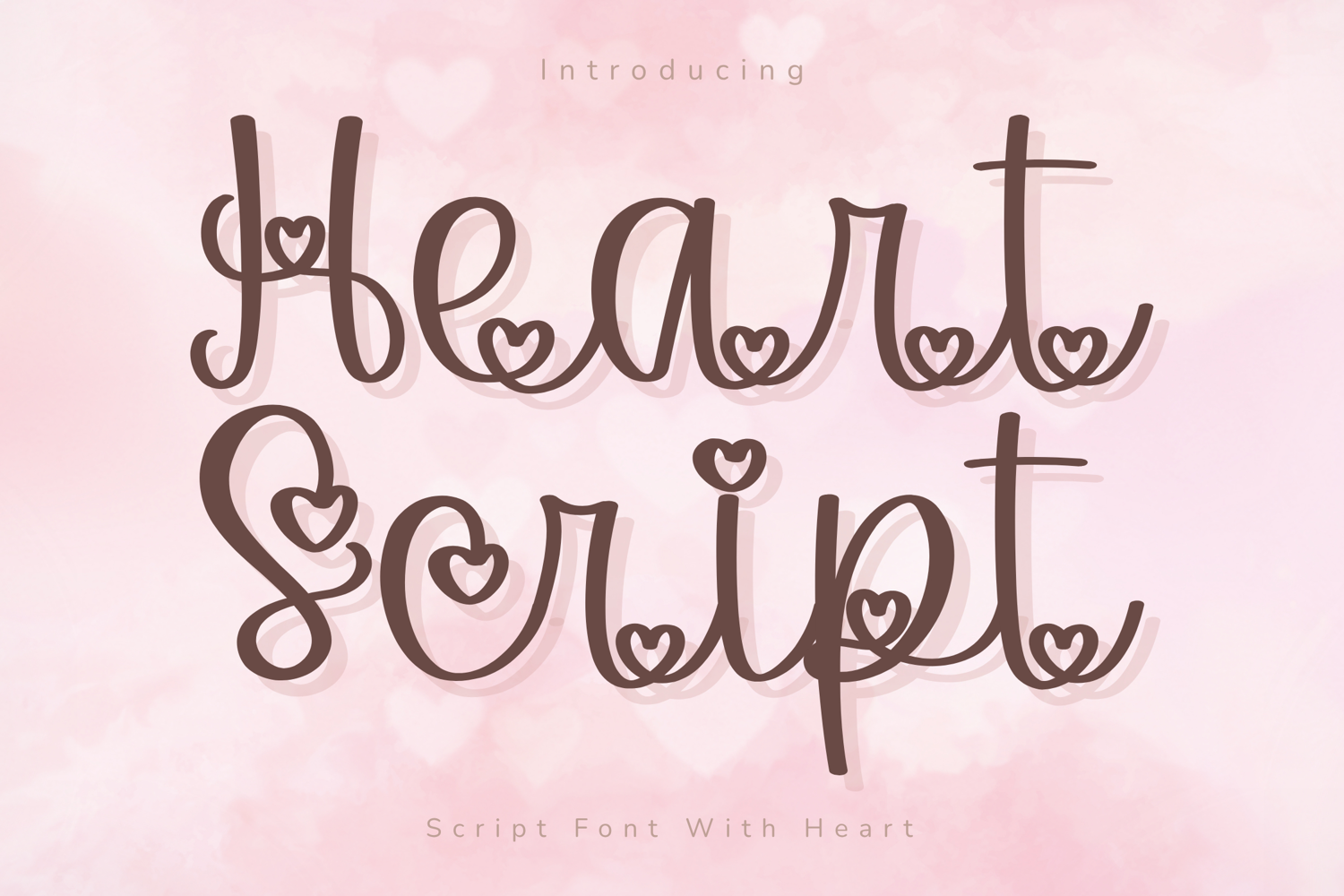
Heart Script - Handwritten Script Font With Heart
HeartScript
Heart Script - Handwritten Script Font With Heart
Heart Script is a sweet and playful handwritten script font designed with adorable heart-shaped details woven naturally into each letterform. Combining cute feminine charm with smooth handwritten curves, this font creates a warm, romantic, and cheerful aesthetic perfect for modern creative projects.
With its lovable heart accents and soft flowing strokes, Heart Script is ideal for Valentine’s designs, wedding invitations, Cricut crafts, stickers, apparel, planner decorations, social media graphics, and cute branding projects.
Uppercase and lowercase letters
Built-in heart details
Numbers and punctuation
Cute handwritten script style
Smooth flowing connections
Feminine and playful appearance
Design Style:
Heart Script features rounded handwritten curves combined with charming heart embellishments inside the letterforms. The result is a font that feels romantic, fun, and irresistibly cute while still remaining clean and highly usable.